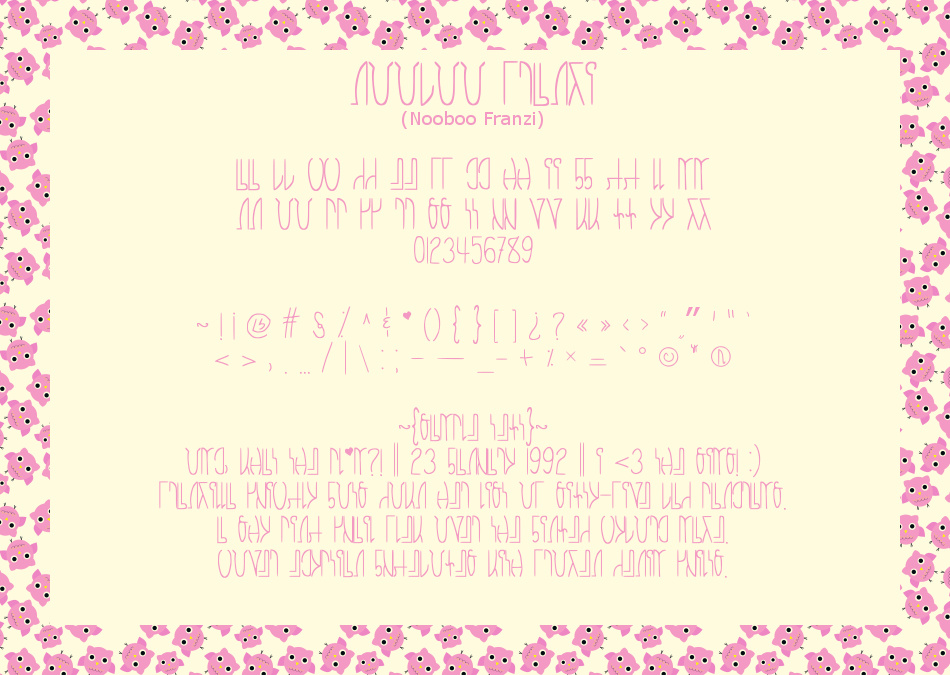
Simlish Fonts: Nooboo Franzi & Pixcellence
Added bold version of Nooboo Franzi
Adjusted kerning, adjusted alignment, added characters, applied section/simoleon symbol (ยง) to more currency signs.
I needed some various fonts for a few poster-esque things I wanted to make, but I like to keep everything in Simlish. So, these fonts were born! I'm very new to fontmaking, but these work well enough for me. You may have to adjust the spacing in your own programs for some glyph combinations.
Nooboo Franzi is an all lowercase font inspired by Baby Lexi by Vanessa Bays.
Pixcellence is just a pixelated version of Simlish.
The ~{Sample Text}~ at the bottom reads as follows:
OMG, what the pl*m?! || 23 January 1992 || I <3 The Sims!
Franzilla quickly jots down her list of sixty-five bad pangrams.
A shy pink quail flew over the jinxed cyborg maze.
Cover Egyptian jukeboxes with frozen denim quilts.